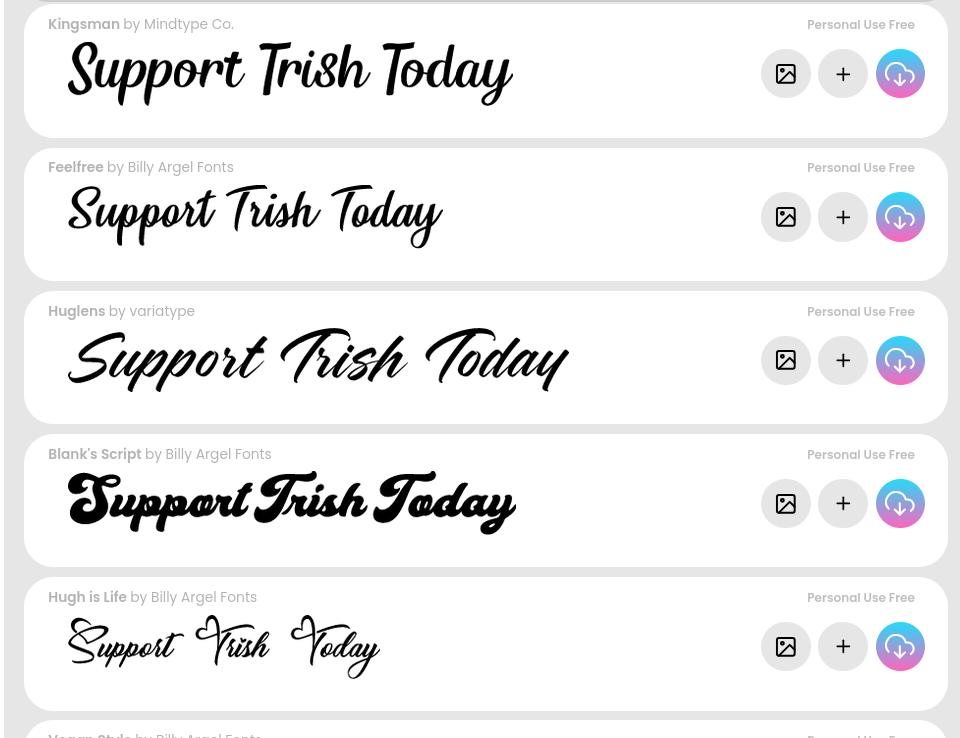
I know this one has to be common and I’m going to kick myself when someone identifies it, but I’m not finding it via font identifiers or scrolling through my fonts and our publication deadline is looming (isn’t it always). I thought it would be something Microsoft knowing the person I got this from (she’s uses Publisher still). All she has is this crappy proof jpg as she managed to corrupt her file without a backup and of course she can’t remember what she picked. It’s obviously stretched. I did get her to admit that she’s dabbling in AI, so I hope that’s not the case with this. Thanks so much if you can help me out.
Speaking about your answer and looking to these fonts, it seems this AI didn’t create the font itself but “cloning” or “Copying” a font of this font site because they look like the same with a small different (take a look to the font “feel free” and you see that are almost the same with a little difference. Coincidence ?, no … I don’t think so!